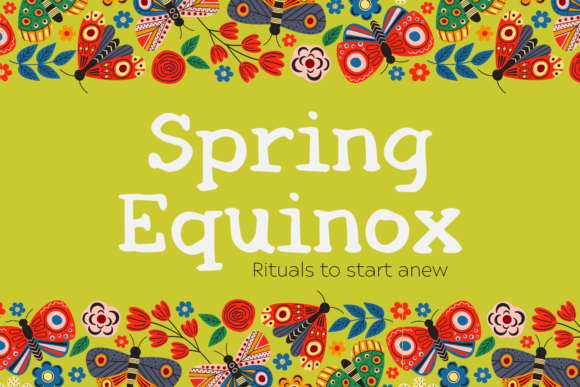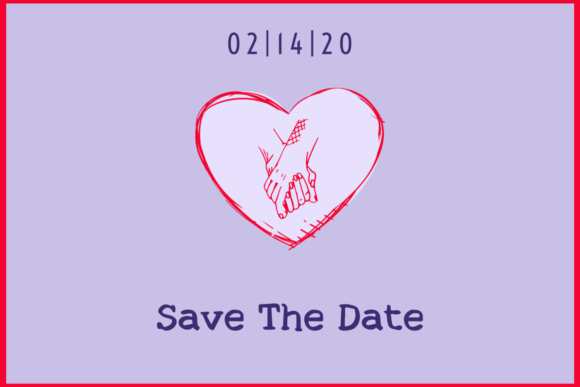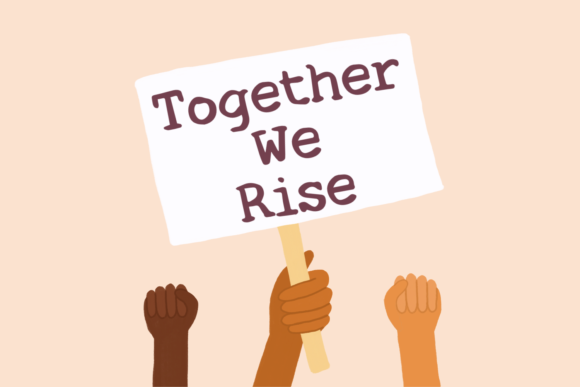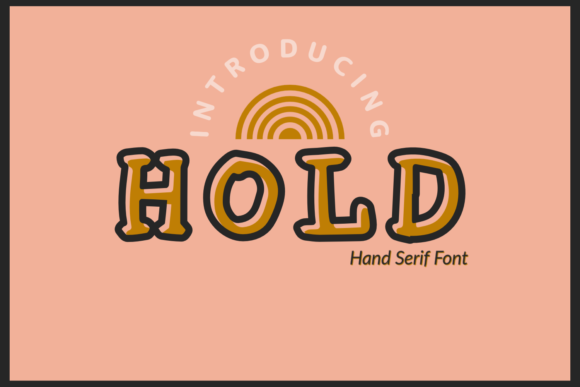
Introduction to Hold Font
Hold is a cool and vintage styled serif font.
Bold, adaptable and friendly, this font will instantly become a top choice in your fonts’ library Add it confidently to your projects, and you will love the results.
Hold Font offers exceptional quality and versatility, making it a valuable addition to your design toolkit. Whether you’re creating for personal projects or commercial use, Hold Font delivers professional results.